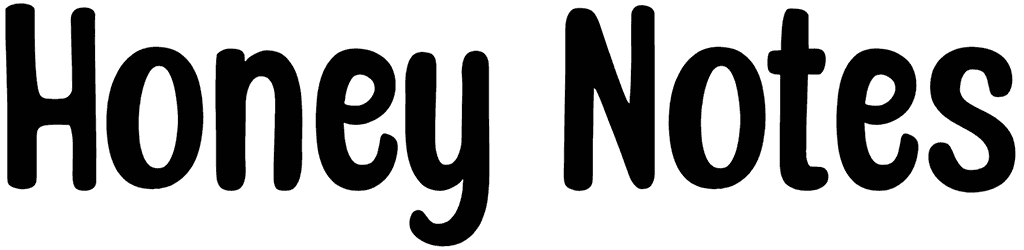
Honey Notes Font
Honey Notes would be perfect for adding a sense of sweet, fun, dreamy, and playful to your next projects, like magazines, banner ads, news headers, and photo editing. It is undeniable that this script font doesn’t support numbers, but you shouldn’t be worried about this deficiency. In case you need more marker fonts, just take a look at our rich archive.